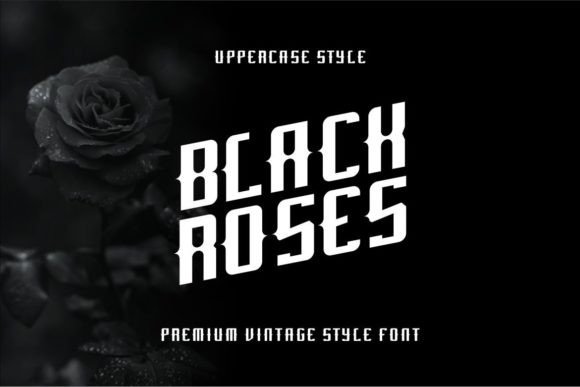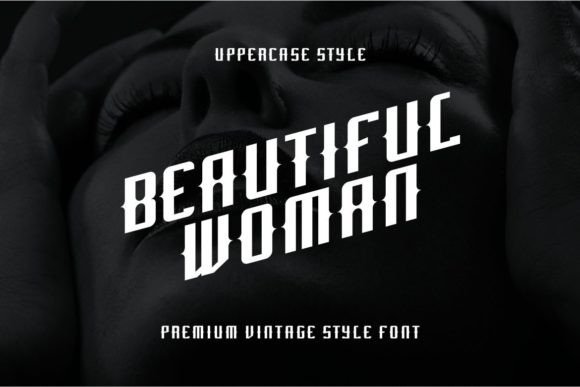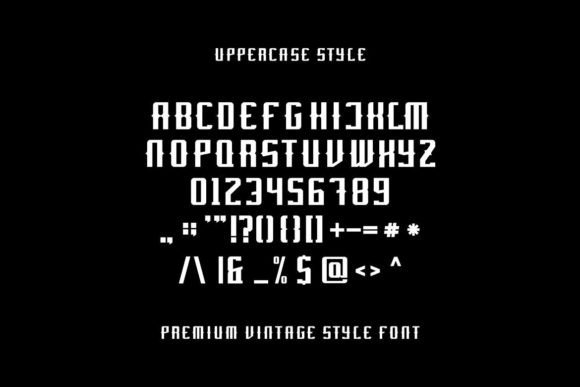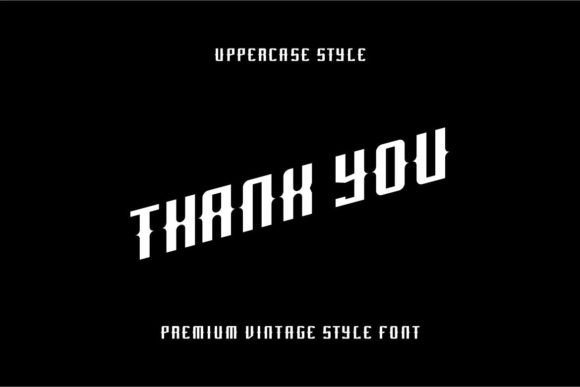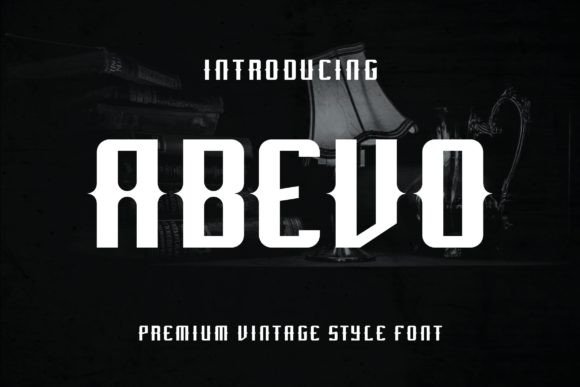
Abevo Font: Elevate Your Designs with a Touch of Vintage Elegance
In the world of design, fonts play a crucial role in conveying the tone and aesthetic of a brand or project. If you’re looking to add a dash of vintage charm and mystique to your designs, look no further than the Abevo Font. This stunning font is perfect for designers and crafters seeking to infuse their work with a sense of luxury, elegance, and sophistication.
What is Abevo Font?
Abevo Font is a carefully crafted typeface designed to evoke a sense of nostalgia and refinement. Its unique blend of classic and modern elements makes it an ideal choice for a wide range of design applications, from logo designs and headlines to social media posts and event posters.
Key Features of Abevo Font
- Vintage Charm: Abevo Font boasts a distinctive vintage flair that’s perfect for designers looking to add a touch of classic elegance to their work.
- Elegant and Luxurious: With its refined lines and sophisticated curves, Abevo Font is guaranteed to elevate your designs and give them a luxurious feel.
- Versatile: Whether you’re working on a logo design, headline, or social media post, Abevo Font is the perfect choice for any project that requires a touch of sophistication.
- Easy to Read: Despite its ornate appearance, Abevo Font is remarkably legible, making it suitable for use in a variety of contexts, from body text to headlines.
Abevo Font is an incredibly versatile typeface that can be used in a multitude of design applications, including:
- Logo Designs: Create a lasting impression with a custom logo that showcases your brand’s personality and style.
- Headlines: Grab attention and make a statement with Abevo Font’s elegant and refined lines.
- Music Projects: Add a touch of sophistication to your music-related designs, from album covers to event posters.
- Social Media Posts: Elevate your social media presence with stylish and engaging posts that showcase your brand’s unique voice.
- Event Posters: Create eye-catching event posters that exude elegance and sophistication.
- Brand Imagery: Use Abevo Font to add a touch of luxury to your brand’s visual identity.
- Product Packaging: Make your products stand out with beautiful and elegant packaging that showcases your brand’s personality.
- Quotes: Add a touch of sophistication to your quotes and sayings with Abevo Font’s refined lines.
- Merchandise: Create stunning merchandise that showcases your brand’s style and personality.
Why Choose Abevo Font?
With so many fonts available, why choose Abevo Font? Here are just a few reasons why designers and crafters are falling in love with this stunning typeface:
- Unique and Distinctive: Abevo Font offers a fresh and unique take on traditional vintage fonts, making it perfect for designers looking to stand out from the crowd.
- High-Quality Design: Abevo Font is meticulously crafted to ensure that it looks stunning in any context.
- Easy to Use: With its clear and legible lines, Abevo Font is incredibly easy to use, even for designers who are new to working with fonts.